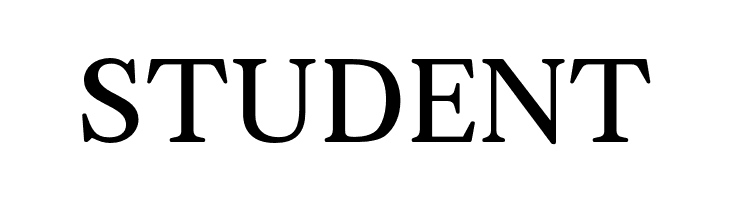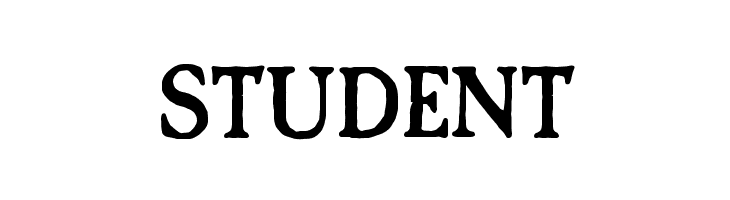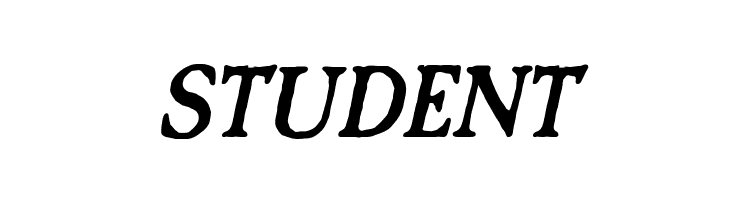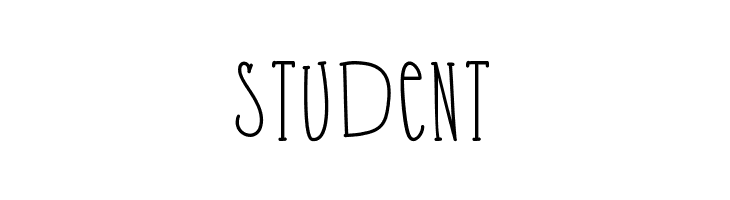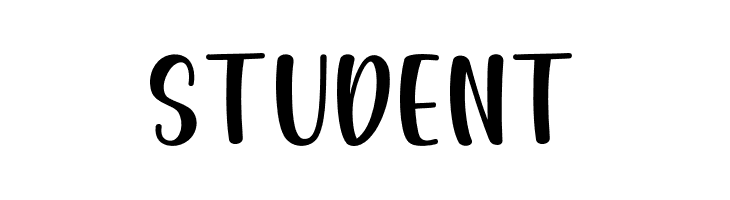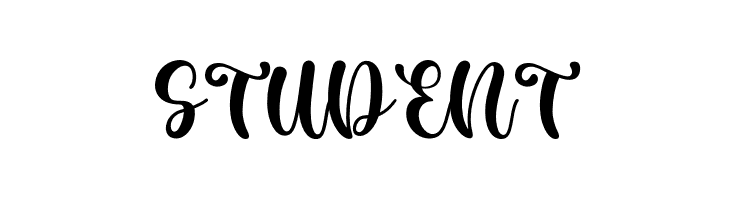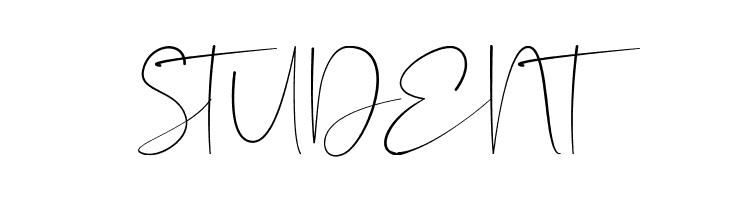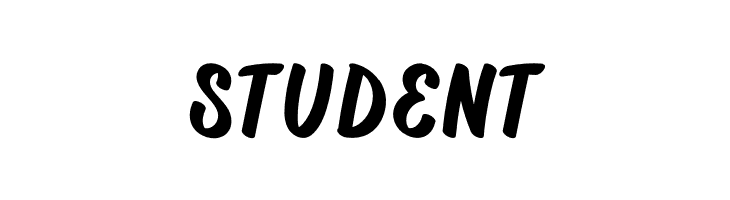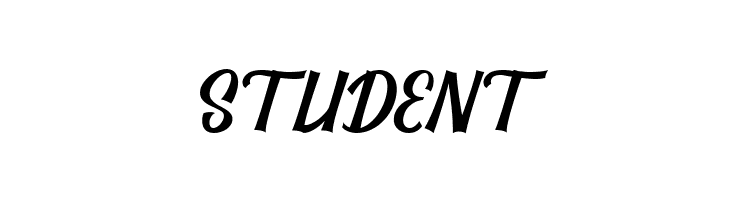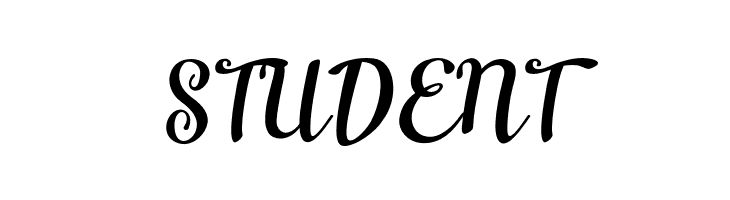
A bold, distressed font with a rugged, industrial look.
A pixelated, geometric font inspired by retro digital displays.
A bold, angular font with a modern, geometric style.
A bold, angular font with a modern, edgy style.
A playful, modern sans-serif font with smooth, rounded edges and consistent stroke width.
A bold, playful handwritten font with rounded, slightly slanted characters.
A playful and elegant cursive script with bold, flowing characters.
A bold, flowing script font with elegant curves and smooth connections.
A bold, antique-style serif font with a classic and historical charm.
A bold, italicized serif font with a classic and antique style.
A classic serif font with elegant strokes and moderate contrast, exuding sophistication.
A bold, playful serif font with a hand-drawn, dadaesque style.
A playful, artistic font with irregular, hand-drawn letterforms.
A whimsical, handwritten font with playful, irregular shapes and a charming style.
A classic serif font with elegant and refined strokes, perfect for traditional designs.
A bold, dynamic script font with a playful and sophisticated flair.
A bold, dynamic script font with a slight slant and elegant curves.
A bold, gothic-inspired font with sharp, angular edges and dramatic flair.
A bold, comic-style font with rounded outlines and a playful appearance.
A bold, rounded, and playful font with a cartoonish style.
A playful, handwritten font with a smooth, flowing style.
A bold, playful handwritten font with smooth curves and thick strokes.
A playful, hand-drawn font with tall, narrow characters and a whimsical feel.
A bold, cursive font with smooth, flowing lines and a modern yet classic feel.
A bold, cursive font with smooth, flowing lines and a dynamic, elegant style.
A bold, cursive script font with elegant, flowing letters.
A bold, flowing script font with elegant, cursive letterforms and medium contrast.
A bold, textured font with a grunge-like, distressed style.
A bold, playful font with thick, rounded strokes and a hand-drawn feel.
A flowing, elegant script font with smooth, connected strokes and a handwritten appearance.
A graceful, handwritten script font with fluid, connected characters.
A bold, expressive handwritten font with dynamic strokes and artistic flair.
A traditional blackletter font with intricate detailing and dramatic flourishes.